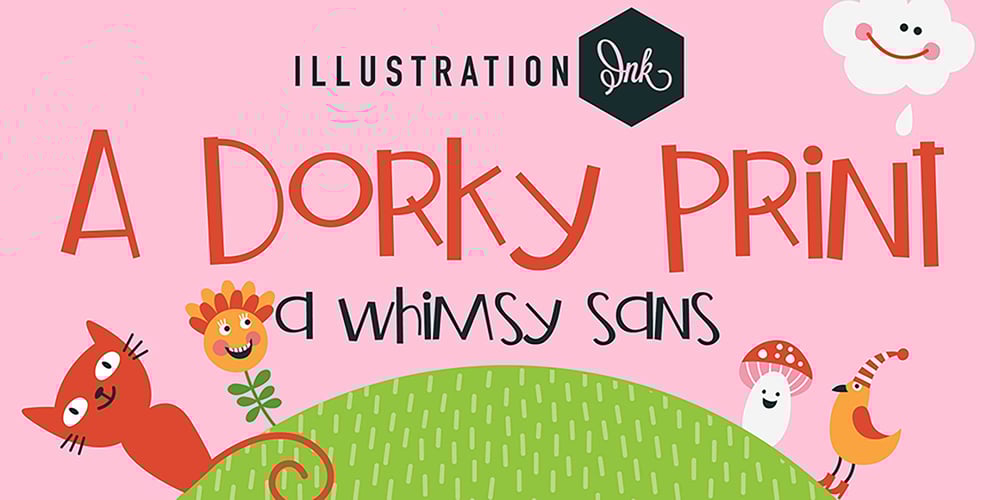
ZP A Dorky Print Font Family was designed by Illustration Ink and published by Illustration Ink. ZP A Dorky Print contains 3 styles and family package options. This fun and whimsical font features a very youthful lettering with a bit of toggle and bounce in the baseline.